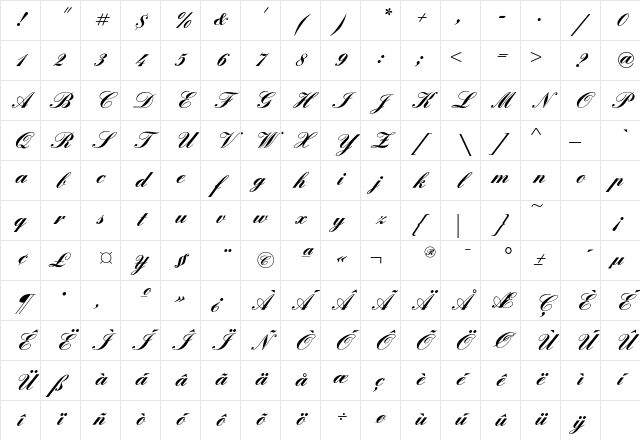
EnglishScriptEF Bold
EnglishScriptEF Family
EnglishScriptEF Bold
Design Context for EnglishScriptEF
EnglishScriptEF flows with the natural rhythm of handwritten lettering, making it ideal for designs that call for warmth and personal expression. Its bold stroke weight gives it real presence on the page.
Font Pairing: Combine EnglishScriptEF with a simple geometric sans for maximum contrast - the tension between flowing curves and clean structure is a classic typographic pairing.
Pro Tip: Use EnglishScriptEF for short runs of text - names, titles, or taglines. Extended body copy in script faces tires the eye quickly.